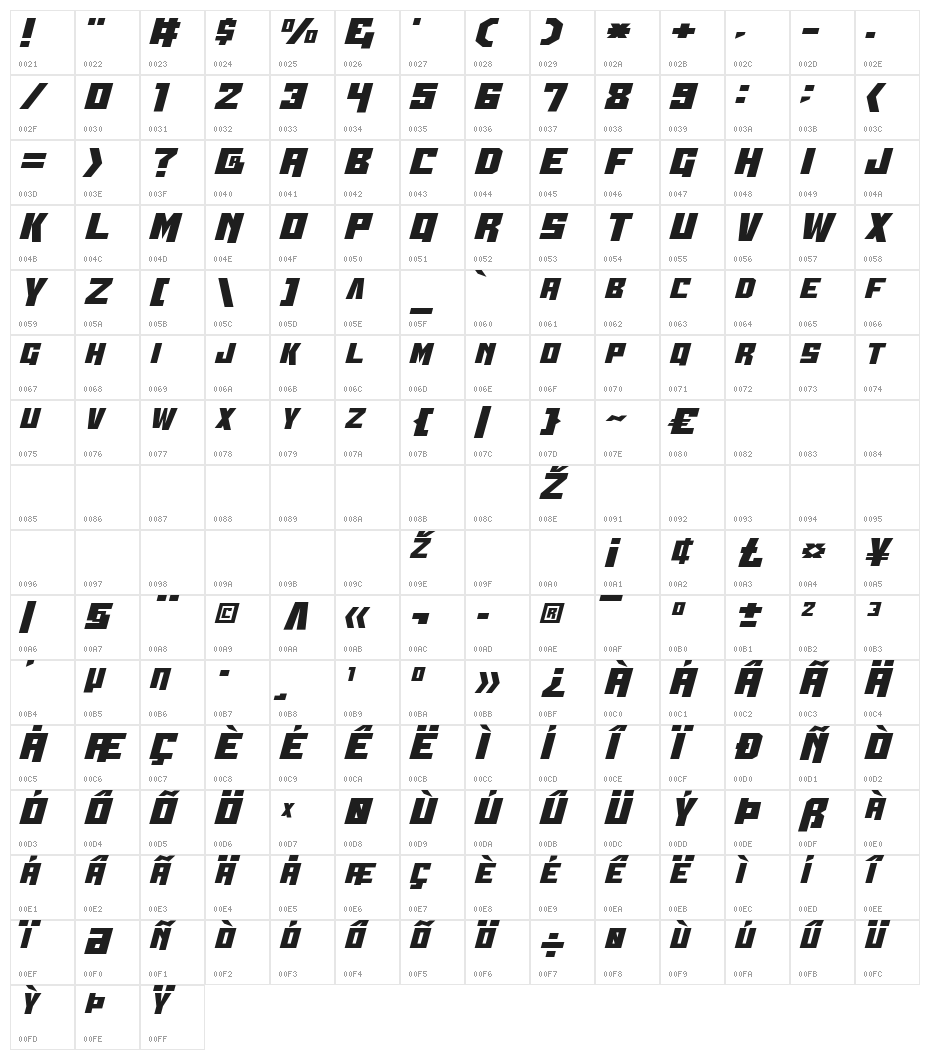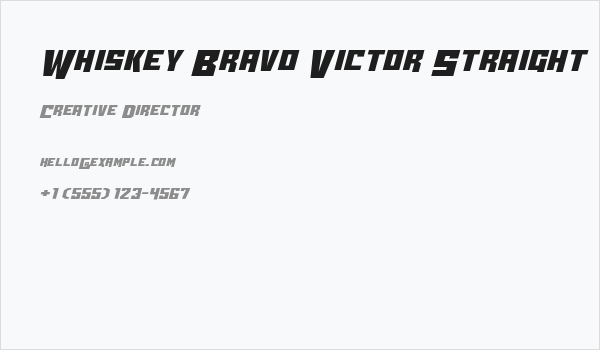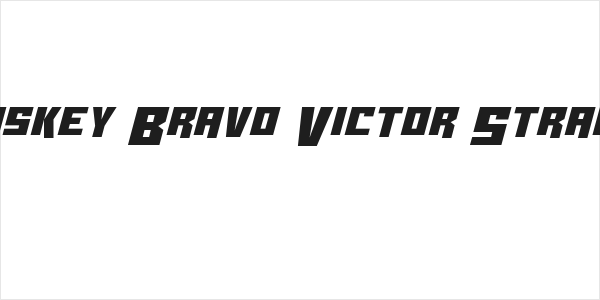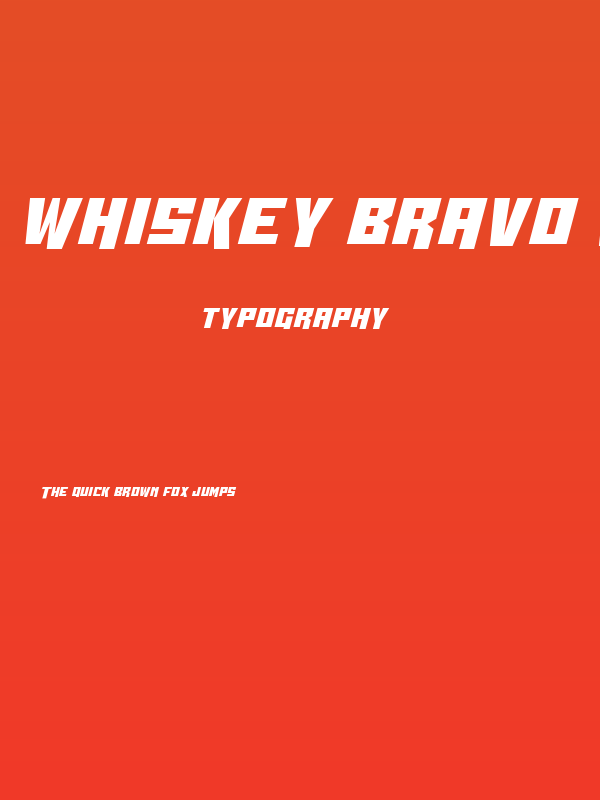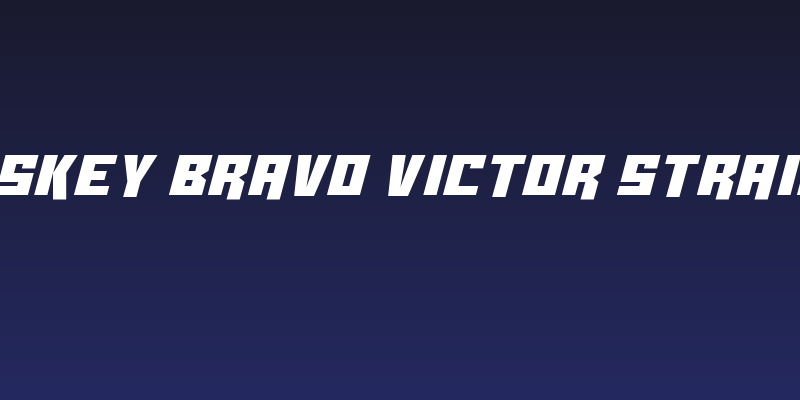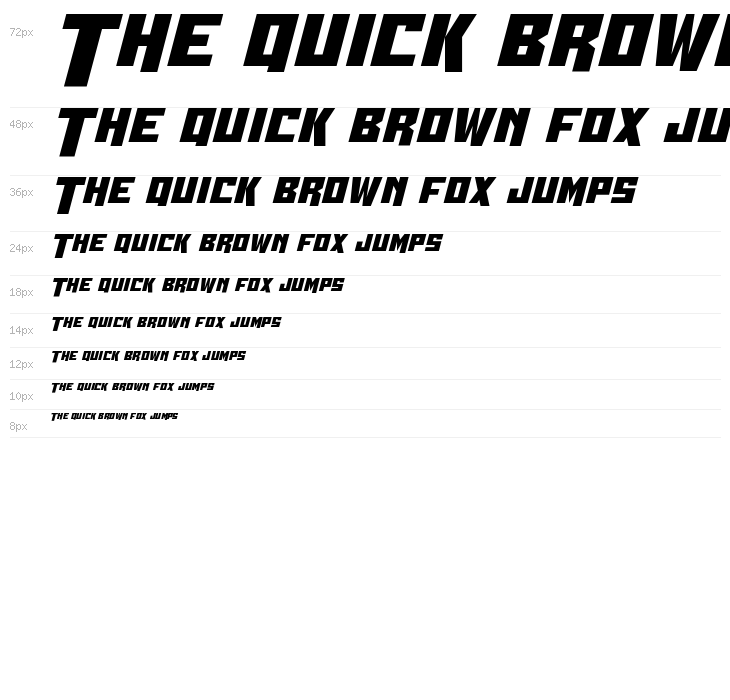
Whiskey Bravo Victor Straight Font
Whiskey Bravo Victor Straight Description
This font features a bold, angular design with a strong geometric influence. The characters are sharply defined with a dynamic slant, giving a sense of motion and energy. The uppercase letters are particularly striking, with a consistent height and width that create a uniform appearance. The numbers and special characters maintain the same bold style, ensuring cohesion across all elements. This font's unique style makes it ideal for projects that require a modern and impactful look. The sharp angles and bold strokes make it stand out, while the consistent slant adds a touch of sophistication.